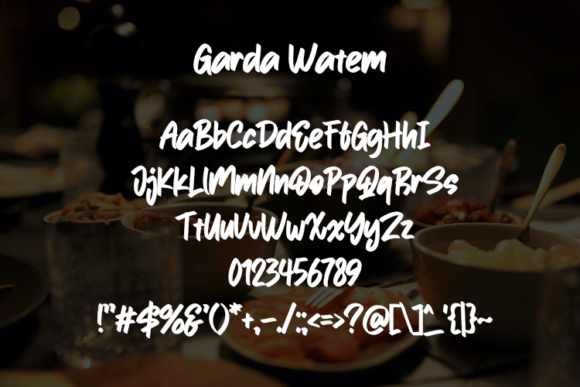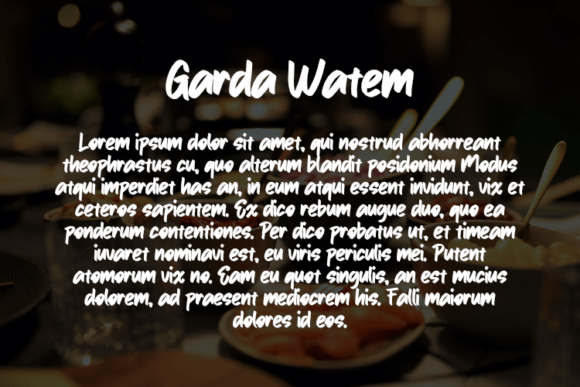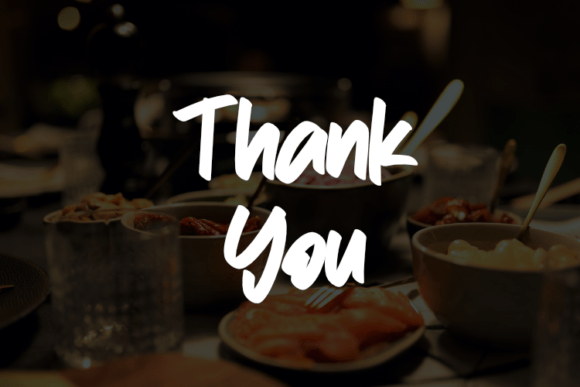
Introducing Garda Watem: The Ultimate Font for Fashion-Forward Creators
In the world of design, typography plays a crucial role in conveying style, attitude, and personality. For fashion-forward creators, finding the perfect font can be a daunting task. That’s where Garda Watem comes in – a unique and versatile font designed specifically for designers who crave something fresh and exciting. In this article, we’ll dive into the world of Garda Watem, exploring its features, benefits, and endless design possibilities.
A Font that Keeps Up with Your Creativity
Garda Watem is more than just a font – it’s a design essential for anyone who wants to create stunning apparel, accessories, or edgy t-shirts. Its modern and sleek design makes it perfect for fashion enthusiasts who want to push the boundaries of style. Whether you’re designing for yourself or for clients, Garda Watem is the ideal typography choice that caters to all design aesthetics.
Multipurpose and Compatible
With Garda Watem, the design possibilities are endless. This font is perfect for:
- Fashion apparel: Create stunning t-shirts, hoodies, or dresses with Garda Watem’s sleek and modern design.
- Accessories: Add a touch of style to your designs with Garda Watem’s unique typography.
- Edgy t-shirts: Garda Watem’s bold and edgy design makes it perfect for creating statement pieces.
- Branding: Use Garda Watem to create a cohesive brand identity that stands out from the crowd.
Whether you’re a professional designer or a DIY crafter, Garda Watem is the perfect font to help you bring your creative vision to life.
Why Choose Garda Watem?
So, what sets Garda Watem apart from other fonts? Here are just a few reasons why designers and crafters love this font:
- Unique design: Garda Watem’s modern and sleek design makes it stand out from other fonts.
- Versatility: This font is perfect for a wide range of design projects, from fashion apparel to accessories.
Are you ready to take your designs to the next level? With Garda Watem, you can:
- Create stunning fashion apparel that stands out from the crowd.
- Add a touch of style to your accessories and branding materials.
- Push the boundaries of style and creativity.
In conclusion, Garda Watem is the ultimate font for fashion-forward creators. Its unique design, versatility, and compatibility make it the perfect typography choice for designers who crave something fresh and exciting. Whether you’re a professional designer or a DIY crafter, Garda Watem is the perfect font to help you bring your creative vision to life. So why wait? Dive into the world of Garda Watem today and discover a world of endless design possibilities!